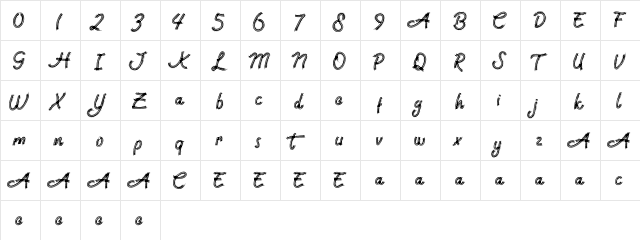
Rock Brush Pro Regular
Design Context for Rock Brush Pro Typeface
Rock Brush Pro flows with the natural rhythm of handwritten lettering, making it ideal for designs that call for warmth and personal expression.
Font Pairing: Combine Rock Brush Pro with a simple geometric sans for maximum contrast — the tension between flowing curves and clean structure is a classic typographic pairing.
Pro Tip: Pair Rock Brush Pro with a clean sans-serif for supporting text. The contrast between fluid script and geometric structure creates an elegant typographic hierarchy.